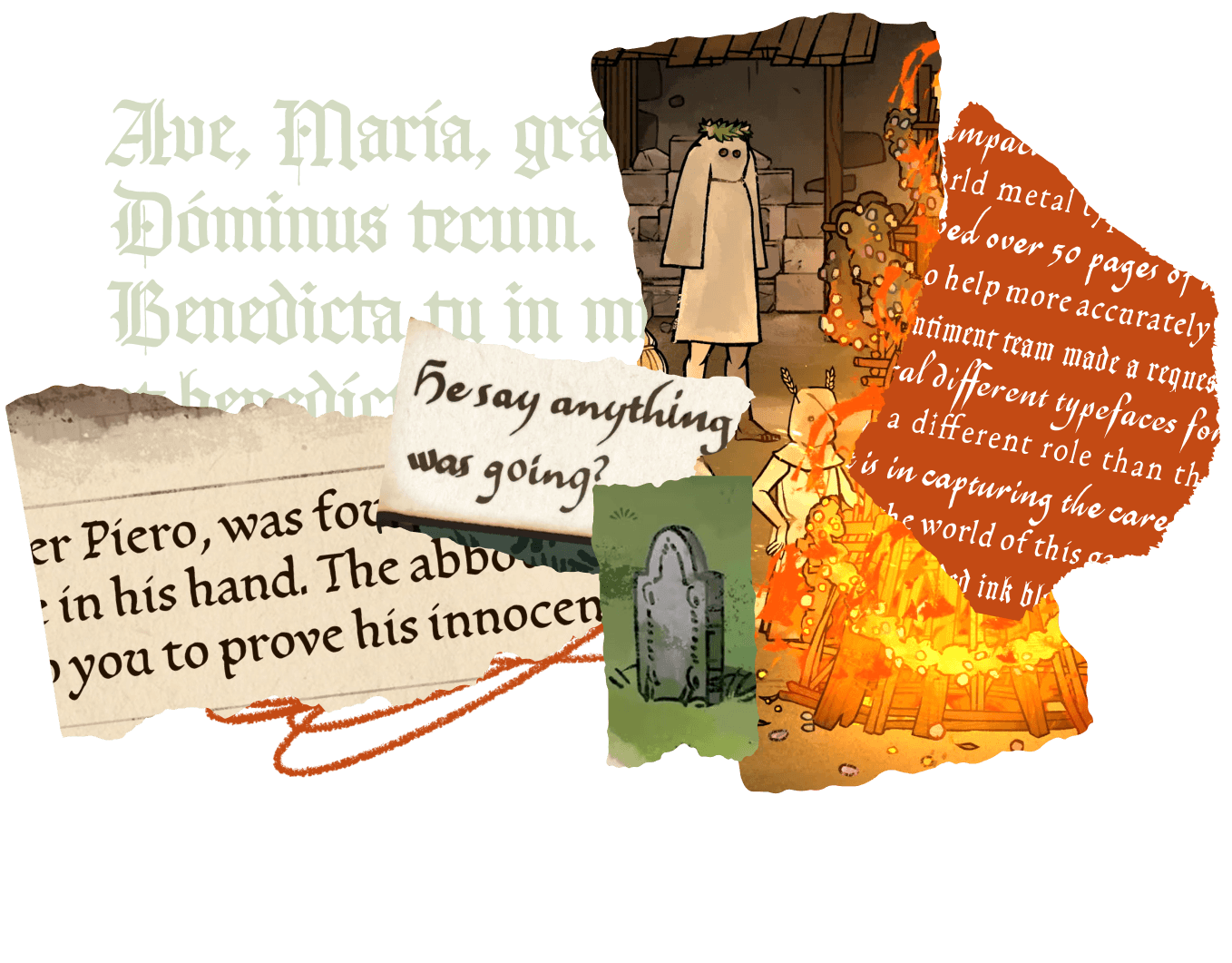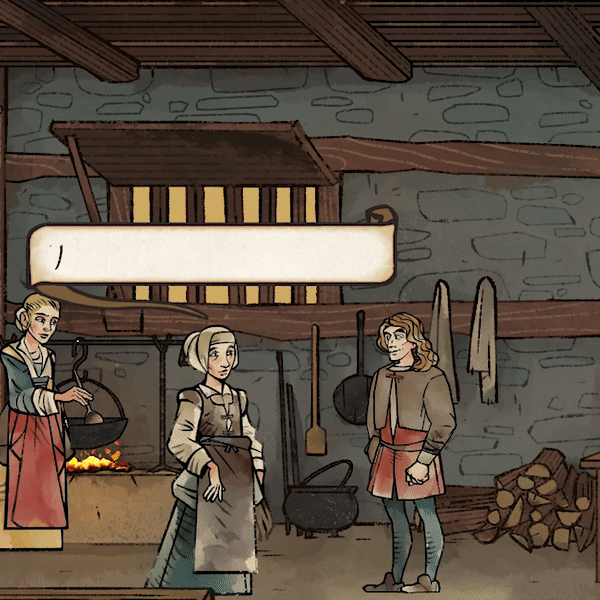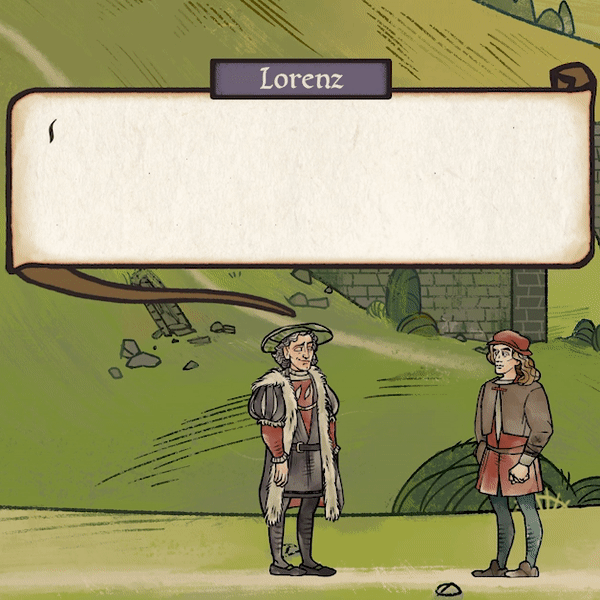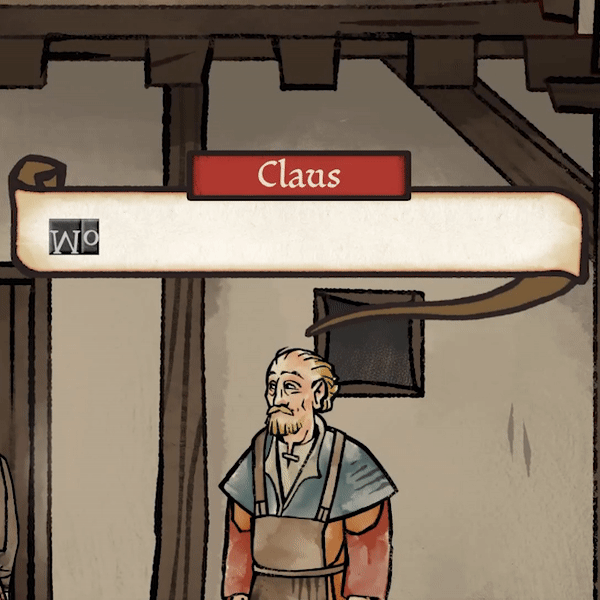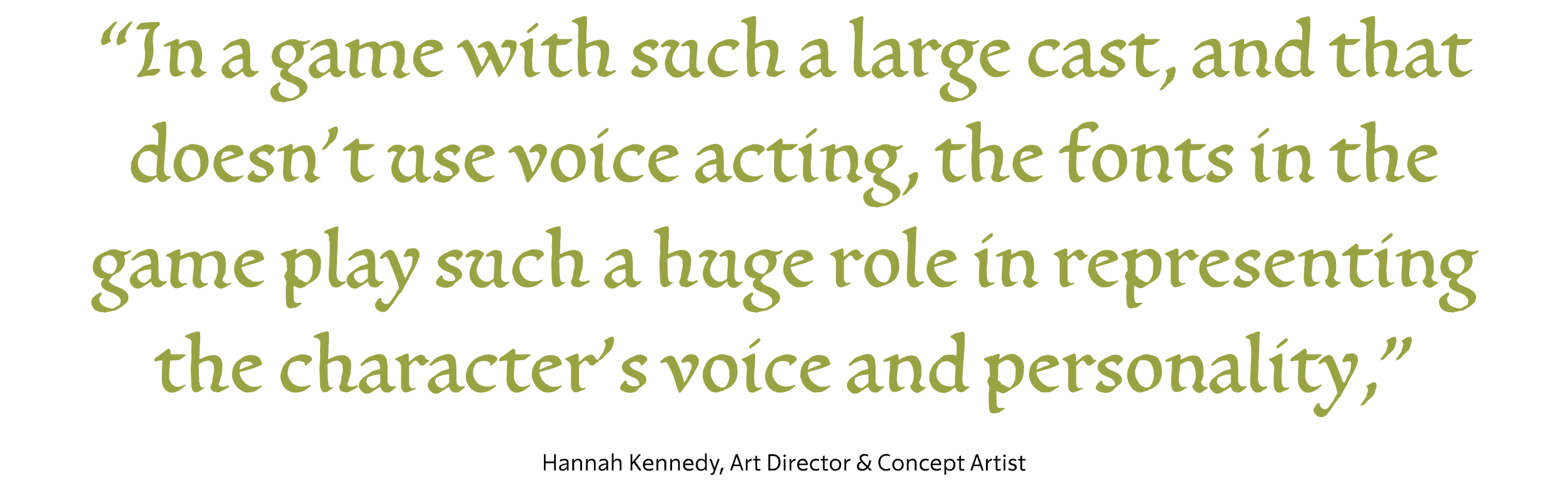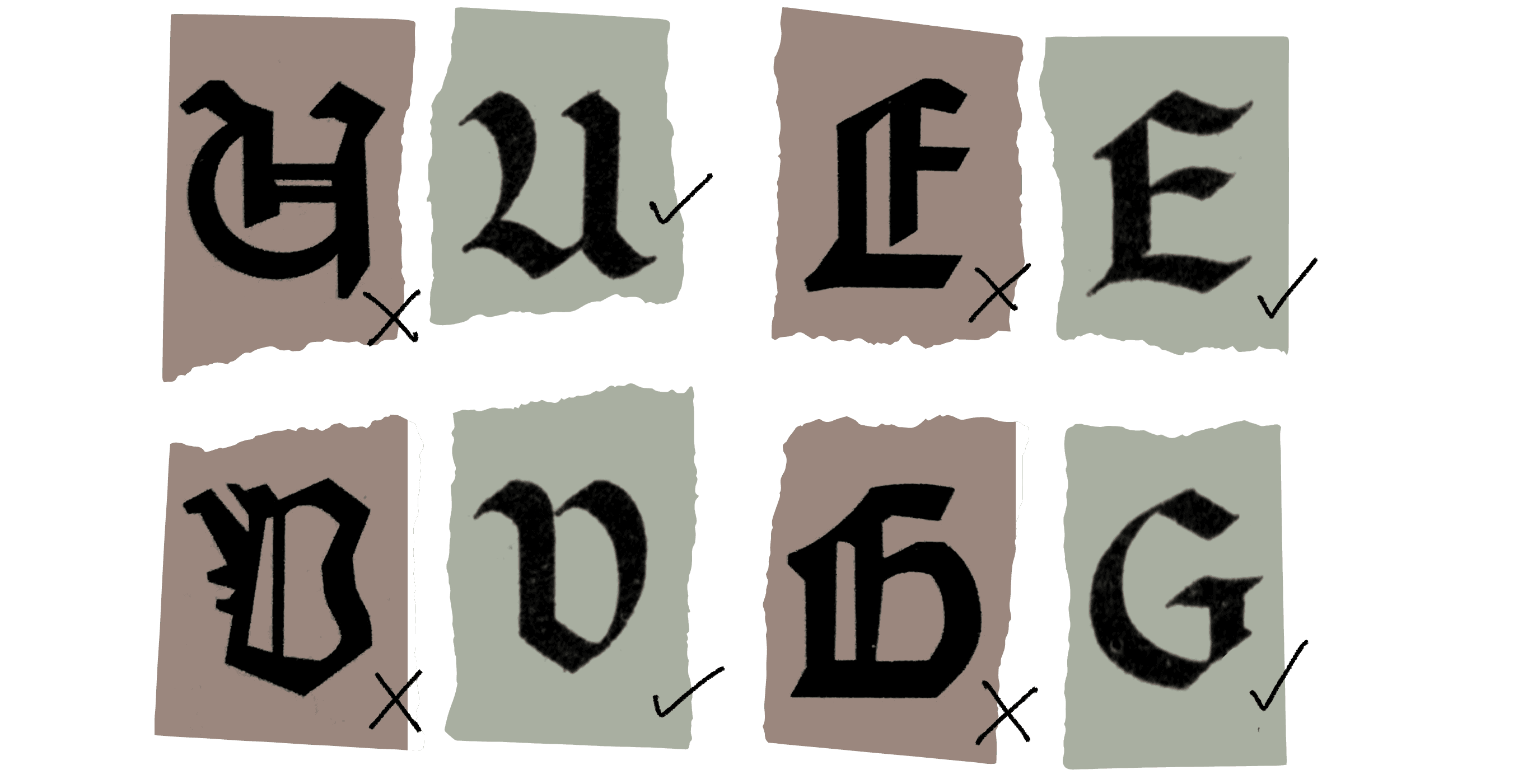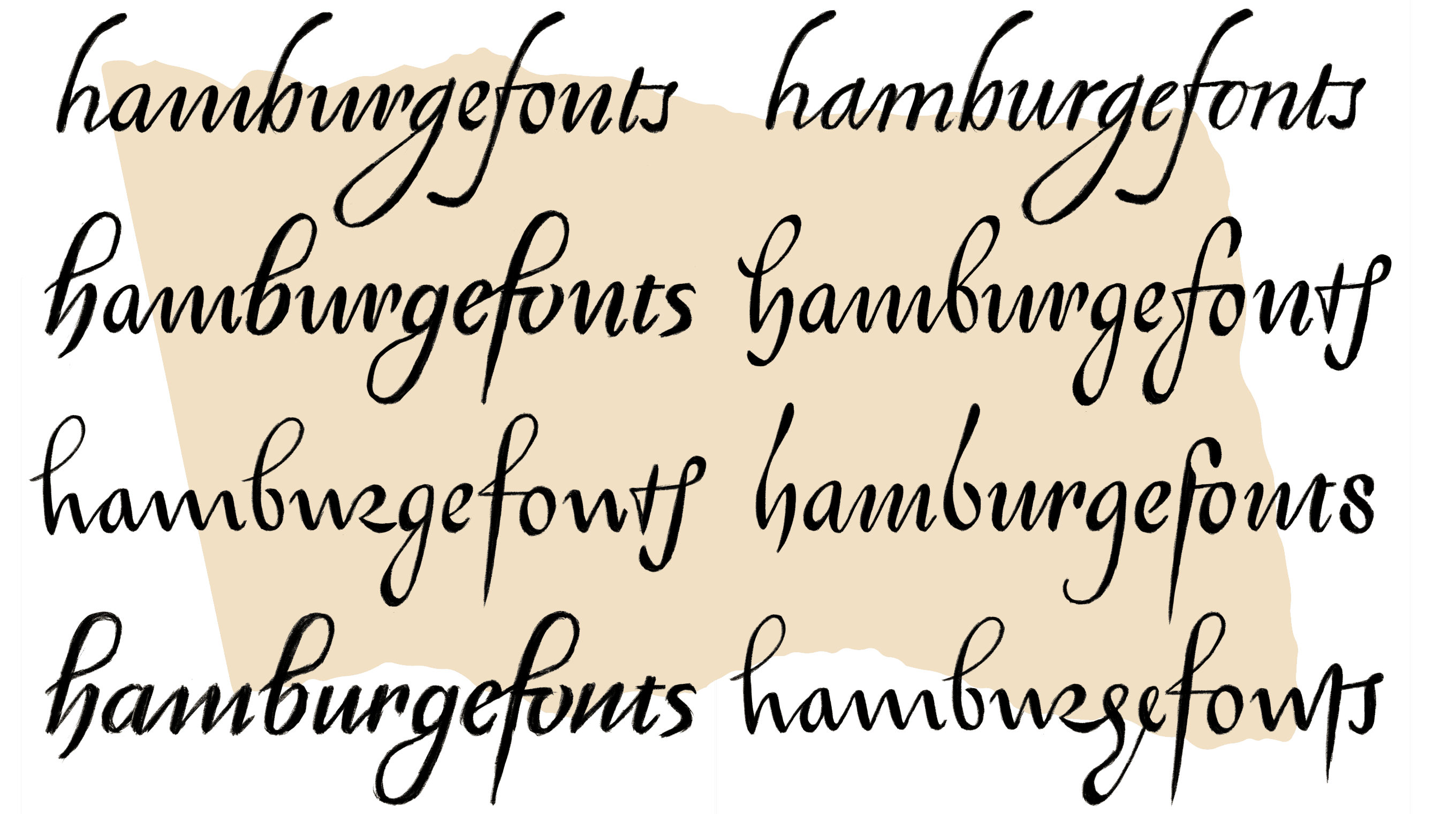
A LETTERMATIC CASE STUDY:
Giving characters a typographic voice in Obsidian’s new RPG
By Riley Cran
The year was 2019. I was sitting on my living room couch playing The Outer Worlds, the latest release from Obsidian Entertainment, traveling through the solar system of Halcyon with my ragtag crew I’d assembled on my journey. I found myself on the planet of Terra 2, speaking with a random NPC standing on the streets of Byzantium, when I burst out into laughter over their dialogue. The character explained that her Grandfather had designed a font used in Byzantium, or rather he had “described the idea of it to their font development team.” I thought to myself “I need to work with the company that would put this line of dialogue in this game.” Little did I know that a couple years later, we’d be doing just that with Josh Sawyer, Studio Design Director at Obsidian, for the new game he was directing, Pentiment.
The case study below is a story of making an extremely thorough toolkit of digital fonts to let the team at Obsidian accurately, warmly, and legibly recreate the writing of people living 500 years ago. In total we drew over 2,700 glyphs (including inking these by hand with authentic writing tools), to build this extremely flexible toolkit of fonts to help Obsidian realize their vision for the typography of Pentiment.
Pentiment is a game with no voiced dialogue, where the written word is core to the player experience, and Josh and the team working on Pentiment had already put a great deal of thought into this by the time Lettermatic was brought in to work on the typefaces for the game. They had a vision of fonts that would simulate the writing and typography of the game’s setting: 16th century Bavaria. Dialogue would then appear on screen, written one letter at a time before the players’ eyes.
In a game with no spoken dialogue, the fonts play a different role than they might in other games. They play some of the role that might otherwise go to a voiceover artist, to say something about who is speaking. And in a well-researched game that is influenced heavily by real world history, there were further character roles we could transpose onto the typefaces. For instance, could we create fonts that allow the character’s writing to be reflective of their level of education, and their standing in this 16th century European society?
Josh Sawyer and Hannah Kennedy (Art Director & Concept Artist) had already done quite a bit of typographic research when we first spoke with them, and the Lettermatic team was compelled to do the same when we kicked off the project. We now have an entire shelf of books in our library dedicated just to Pentiment research: books of European manuscript writing from the period, Italian ‘italic hand’ masters, books of educational exemplars collected in the centuries since these styles were popular, and books on the history and evolution of these ‘hands’ as they progressed through time and geography.
“In a game with such a large cast, and that doesn't use voice acting, the fonts in the game play such a huge role in representing the character's voice and personality,” notes Hannah Kennedy, Art Director for Pentiment. “The level of effort put into making each font feel representative of different types of people makes our conversations feel so much more dynamic.”
FIG. 2 — Top left: A “long s” on the U.S. Bill of Rights. Top right: A Kurrent cursive script sample, from Obsidian’s mood boards. Center: Nicolas Jenson’s ‘Quintilianus’, Venice (1471), from Obsidian’s mood boards. Bottom left: Carolingian samples from Letter by Laurent Pflughapt (2007). Bottom right: A humanist calligraphy sample from Obsidian’s mood boards.
FIG. 3 — Top left: Nicholas Jenson’s Eusebius Pamphilus, De evangelica praeparatione (1470) from The Visual History of Type by Paul McNeil. Bottom left: The Malmesbury Bible (1407). Center: The family tree of writing styles created by Heather. Bottom center: Comparison from The Alphabet and Elements of Lettering by Frederic Goudy (1942). Top right: type by Bartolomeo de Libri Florence (1487) in the Epistola a Pino de' Rossi (1487), Munich DigitiZation Center. Bottom right: Ludovico Arrighi, Letter From Cardinal Pietro Bembo (1516) from Two-Thousand Years of Calligraphy by Dorothy E. Miner.
Additionally, we hired our friend Jane Solomon to help us research samples available digitally from institutions around the world, which led to us pouring over samples of handwriting from historical figures alive at this time. Things like the last will and testament of William Shakespeare (26 April 1564 – 23 April 1616). From this historical information, Heather Cran on the Lettermatic team made a ‘family tree’ of writing styles from this period of time, tracing them back to a common ancestor (the Carolingan Miniscule, the prototype of our modern lowercase). We had to place the world of this game in time, in relation to this history, to find references which were, realistically, the kind of writing you’d encounter in the 16th century world of Pentiment.
In total we reviewed over 50 pages of mood boards with the team working on Pentiment, to find our directions for each of the fonts in the series. We also had a goal of tastefully modernizing these letterforms where we could, to make them easily legible for a modern audience that was unfamiliar with the letterforms of the period. For instance, knowing there was to be a Textura (blackletter) design of some kind, we thought a lot about which forms of capital letters we could gently modulate to bring them more in line with the Imperial Roman inspired forms that modern readers now are presented with daily. In short, we had to rewind time, find fossilized letters, and update them subtly wherever possible to survive in our modern world.